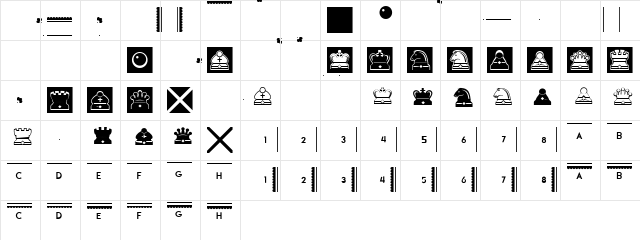
Wisdom Chess Regular
Design Context for Wisdom Chess Typeface
Wisdom Chess offers clean, dependable letterforms without strong stylistic allegiance, making it a practical choice for designers who need flexibility.